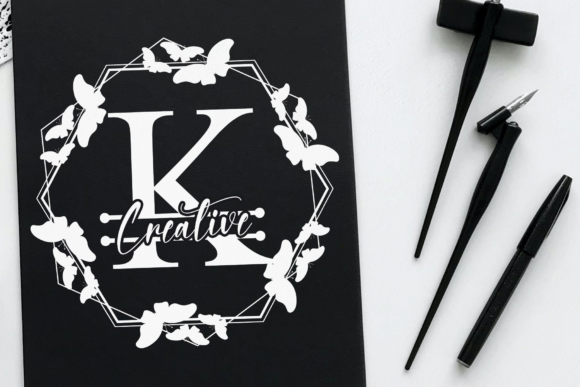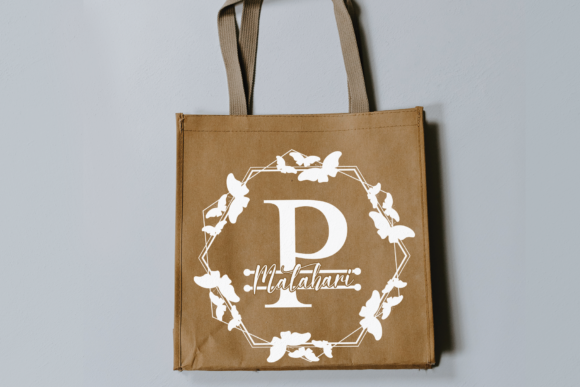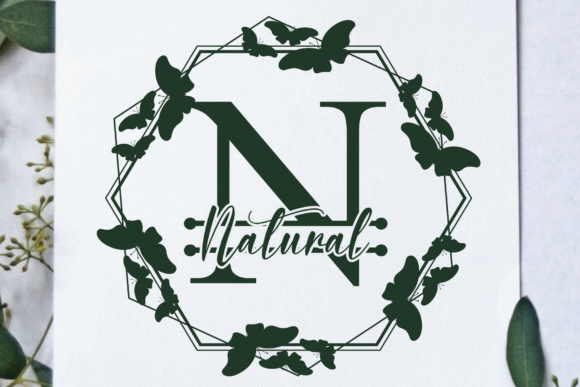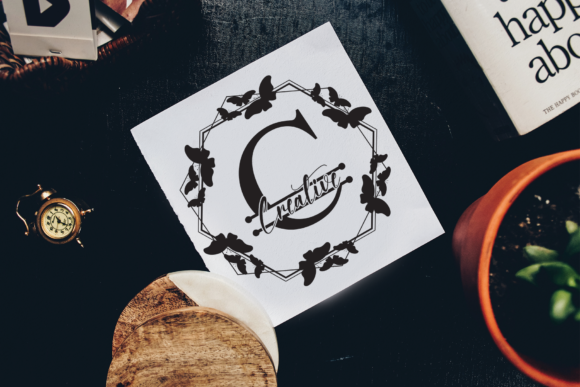
The Sweet Charm of Butterflies Font: A Designer’s Delight
I’ll never forget the time I was working on a wedding invitation project, and my client asked me to add a touch of whimsy and romance to the design. I scoured the internet for the perfect font, but nothing seemed quite right. That’s when I stumbled upon Butterflies Font, and it instantly became the perfect fit. In this article, I’ll share my experience with this lovely font, its features, and how to make the most of it in your designs.
A Personal Review of Butterflies Font
I’ve had the pleasure of working with Butterflies Font on several projects, and here’s what I think:
- ✨ It’s incredibly romantic and adds a touch of elegance to any design.
- ✅ The font is highly versatile and works well for a variety of projects, from wedding invitations to love letters.
- 🎉 It’s perfect for designers, crafters, and creative hobbyists who want to add a personal touch to their work.
However, I do have to mention a few quirks:
- 🤔 The font can be a bit finicky when it comes to kerning, so be prepared to adjust the spacing between letters.
- ⚠️ Some users may find the font a bit limited in terms of variations, but I think this is part of its charm.
The Story Behind Butterflies Font
Butterflies Font was designed by a talented typographer who wanted to create a font that captured the essence of romance and whimsy. The font was inspired by the beauty of butterflies and the delicate, intricate details of their wings. The designer spent countless hours perfecting the font, making sure that every letter and glyph was just right.
| Font Name | Butterflies Font |
| Author | Monogram, S.KOM |
| What is Butterflies Font? | Butterflies Font is a decorative font that’s perfect for adding a touch of romance and whimsy to your designs. |